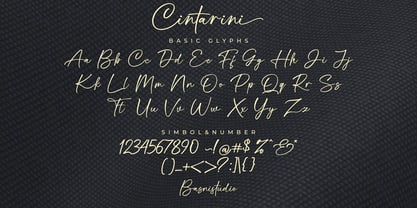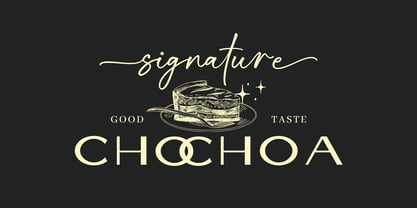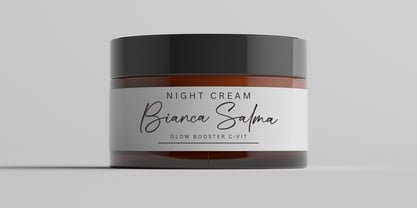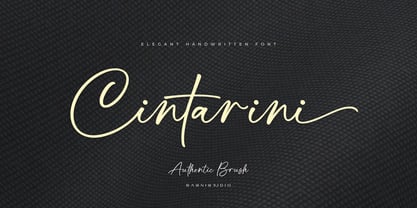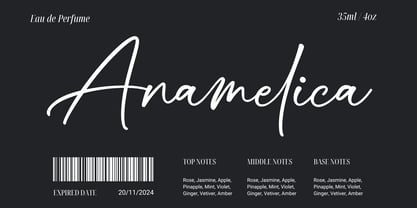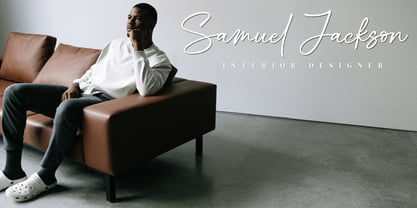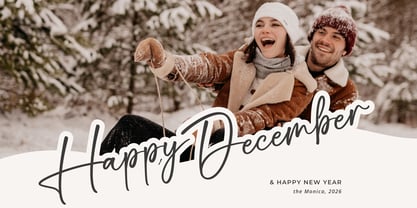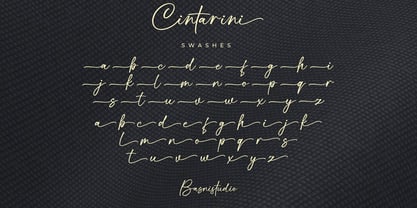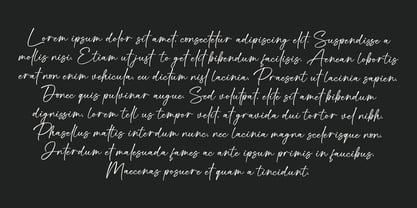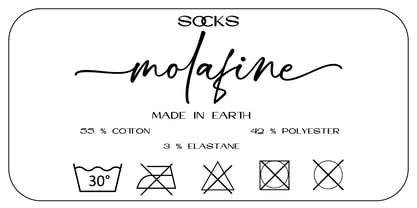
Cintarini
The Cintarini Font Family was designed by Bery Arisandi and published by Basnistudio. Cintarini contains 1 styles. More about this family
Introducing Cintarini, an Flawless handwritten font crafted with authentic Brush for Natural & Casual touch for everything from branding and social media to invitations and packaging. Elegant & Casual – Perfect for tagline, quotes, greeting cards, and more Authentic Handwritten Feel – Created with authentic Brush for Natural & Casual Easy to Use – Works seamlessly with all major design programs Ligature & Alternates Swashes Numbers & punctuation Multilingual Support ( Support for 90 languages ) Thank You Very Much